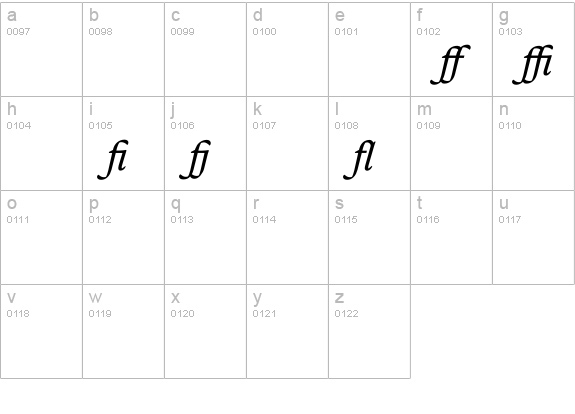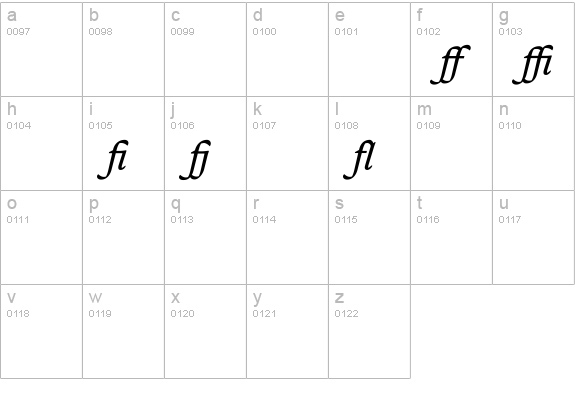
RenardNo1-ItalicLig is a stunning and elegant font that exudes sophistication and style. With its sleek and slanted italic ligatures, this font adds a touch of flair to any design project. Whether used for invitations, logos, or headings, RenardNo1-ItalicLig effortlessly brings a sense of professionalism and class. This font is perfect for those who want to make a bold statement with their typography. Its unique and eye-catching ligatures add an extra layer of creativity to any project, making it stand out from the crowd. The slender and curvaceous letterforms create a harmonious balance between elegance and legibility. One of the best things about RenardNo1-ItalicLig is that it is available for free. That's right, you can freely download this font at FontsMarket.com, making it easily accessible to anyone who wants to add a touch of sophistication to their designs. Whether you are a professional designer or simply someone who enjoys experimenting with typography, RenardNo1-ItalicLig is a must-have in your font collection. So why wait? Download RenardNo1-ItalicLig today and elevate your designs to new heights. With its free availability and stunning aesthetics, this font is sure to become a favorite among designers and creatives alike. Don't miss out on the opportunity to add a touch of elegance and style to your projects - get RenardNo1-ItalicLig now!